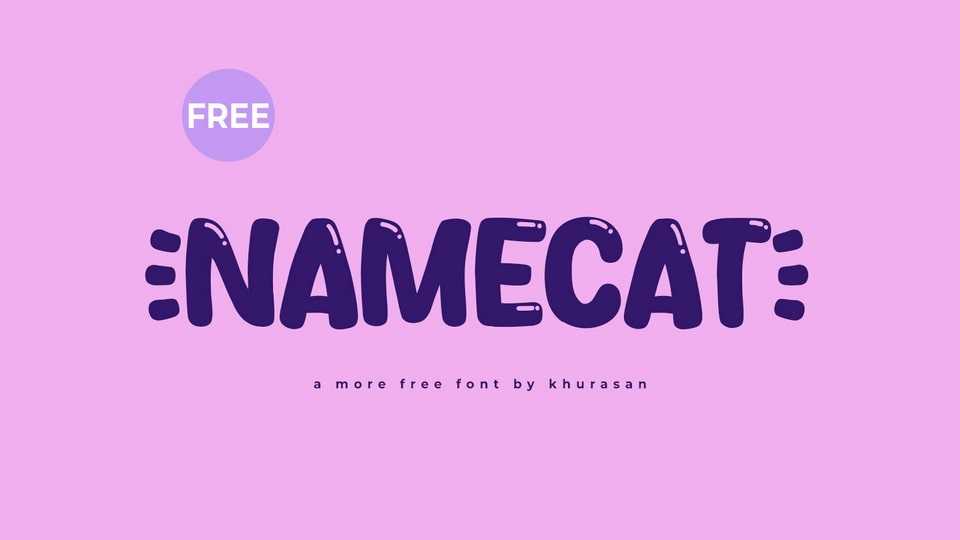
Download Namecat font, a friendly and playful hand-drawn typeface that radiates warmth and whimsy. Namecat font is perfect for projects that seek an approachable and lighthearted aesthetic.